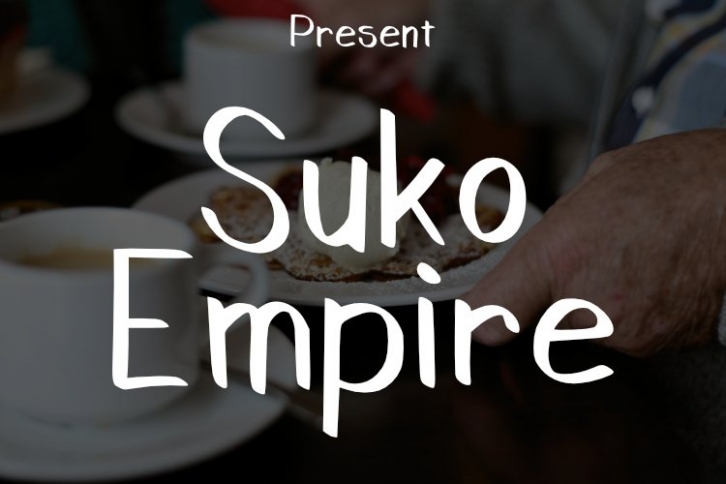
Suko Empire is a beautiful font that was designed by kreatif eric. It's a great choice for designers and creatives who need such a font. It was released on June 10, 2022 and the file size is 10.65 MB. Suko Empire may give a more youthful, expressive and casual look to your project. It is a very beautiful, refined, elegant, and high-quality font.